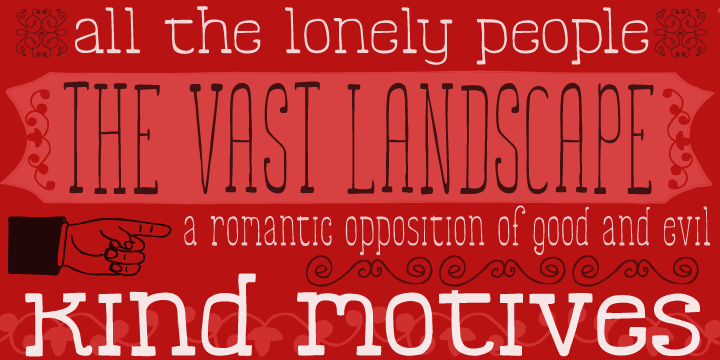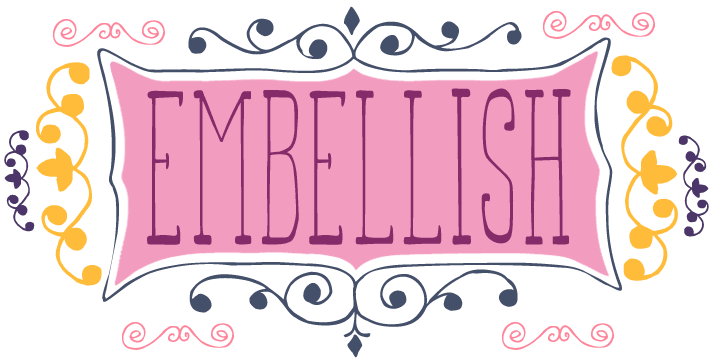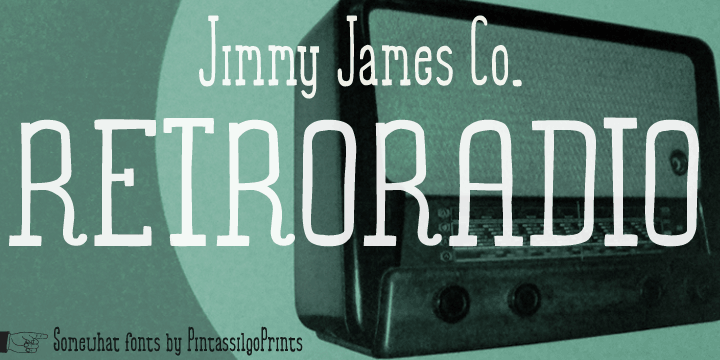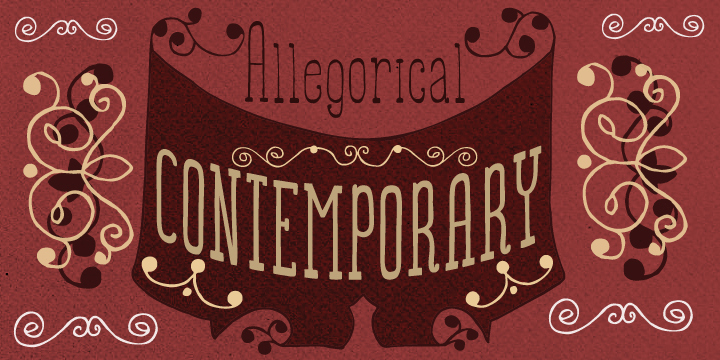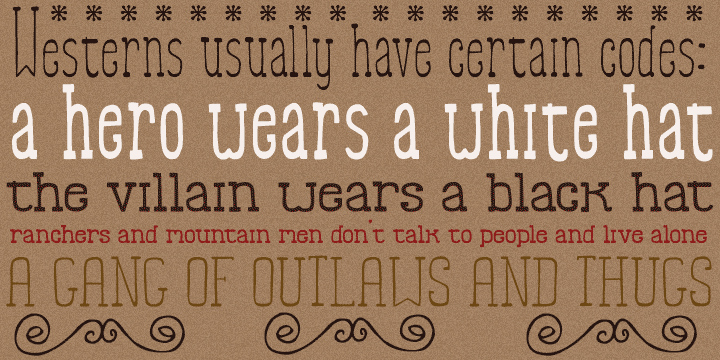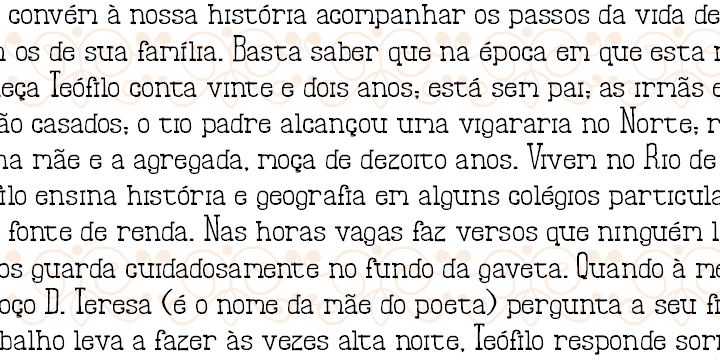
About the Somewhat Font
About Somewhat Font Family Somewhat retro, somewhat amusing, somewhat handsome, totally handy!This hand-drawn family counts 4 fonts plus a whimsical set of ornaments. Suitable for both display and text sizes,